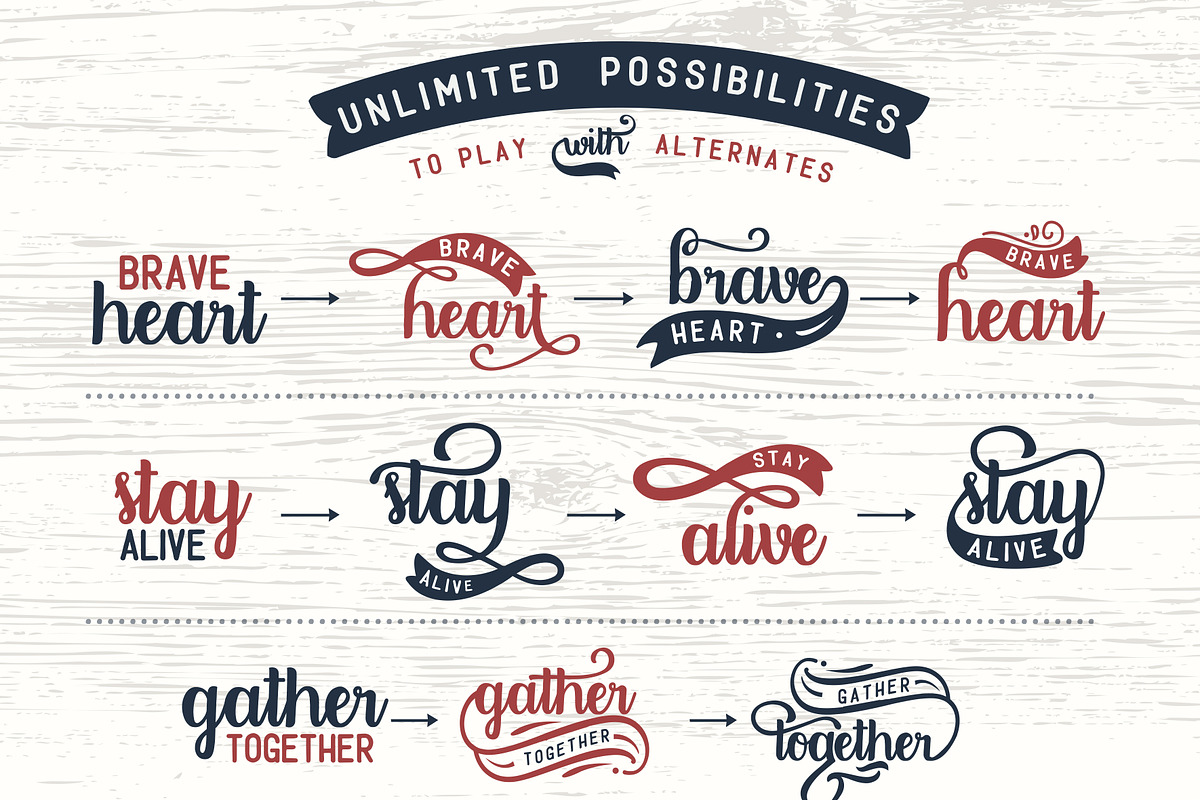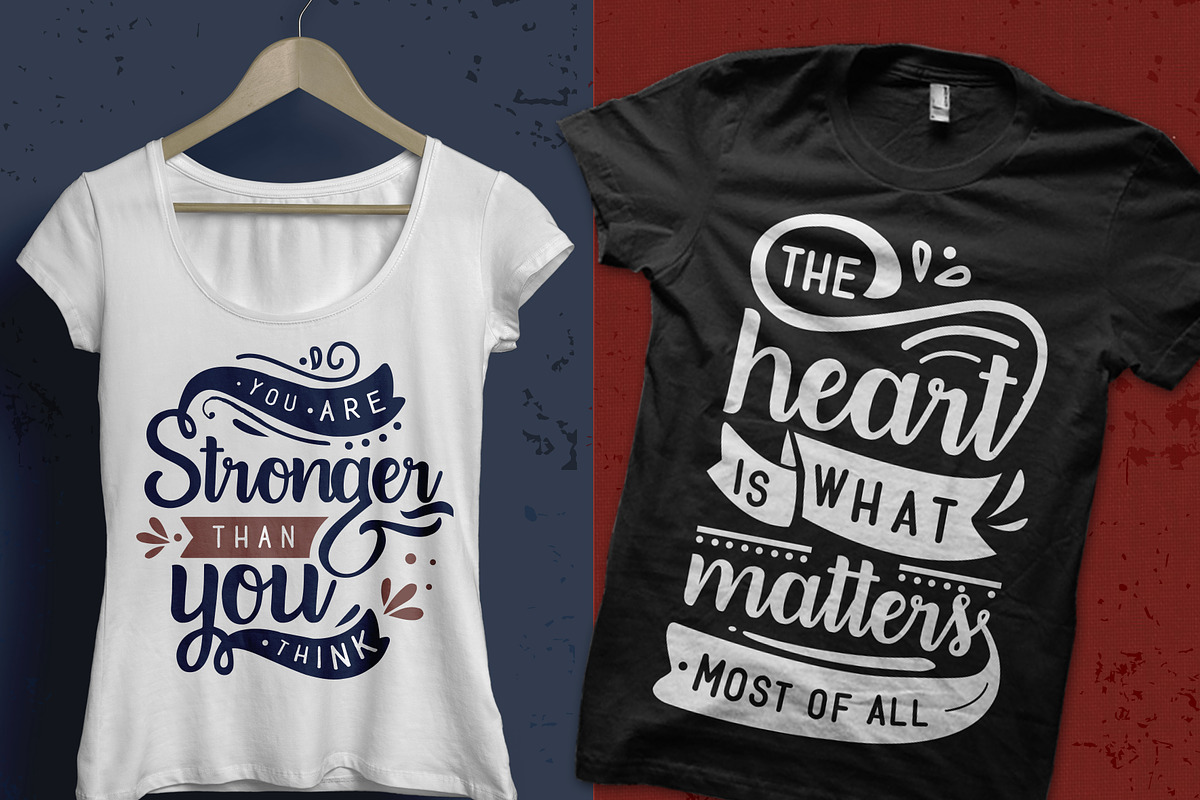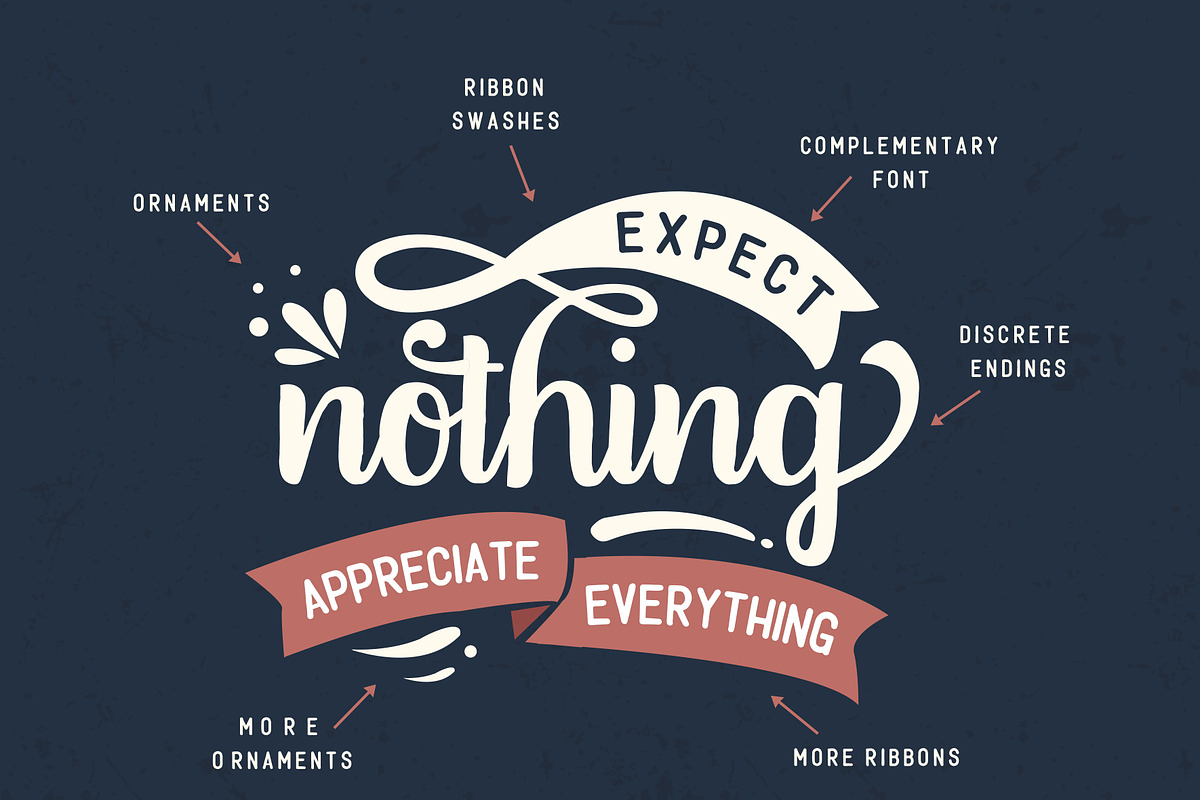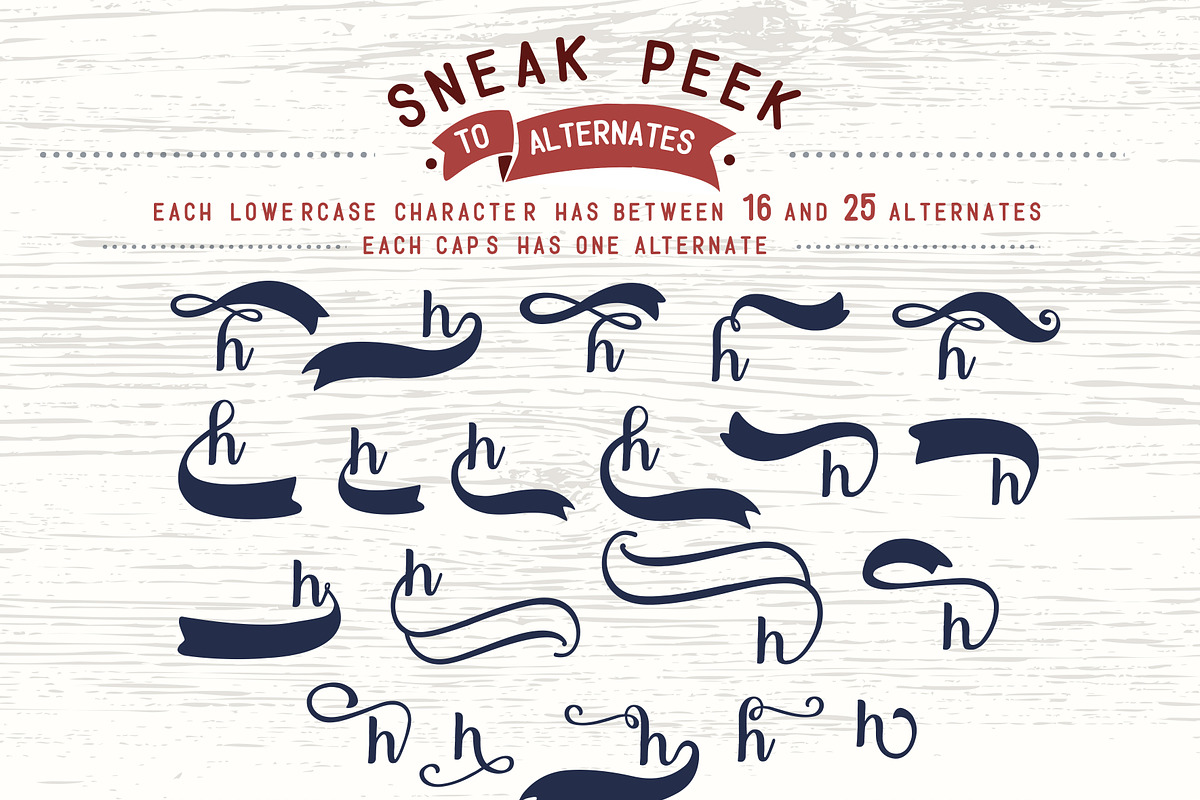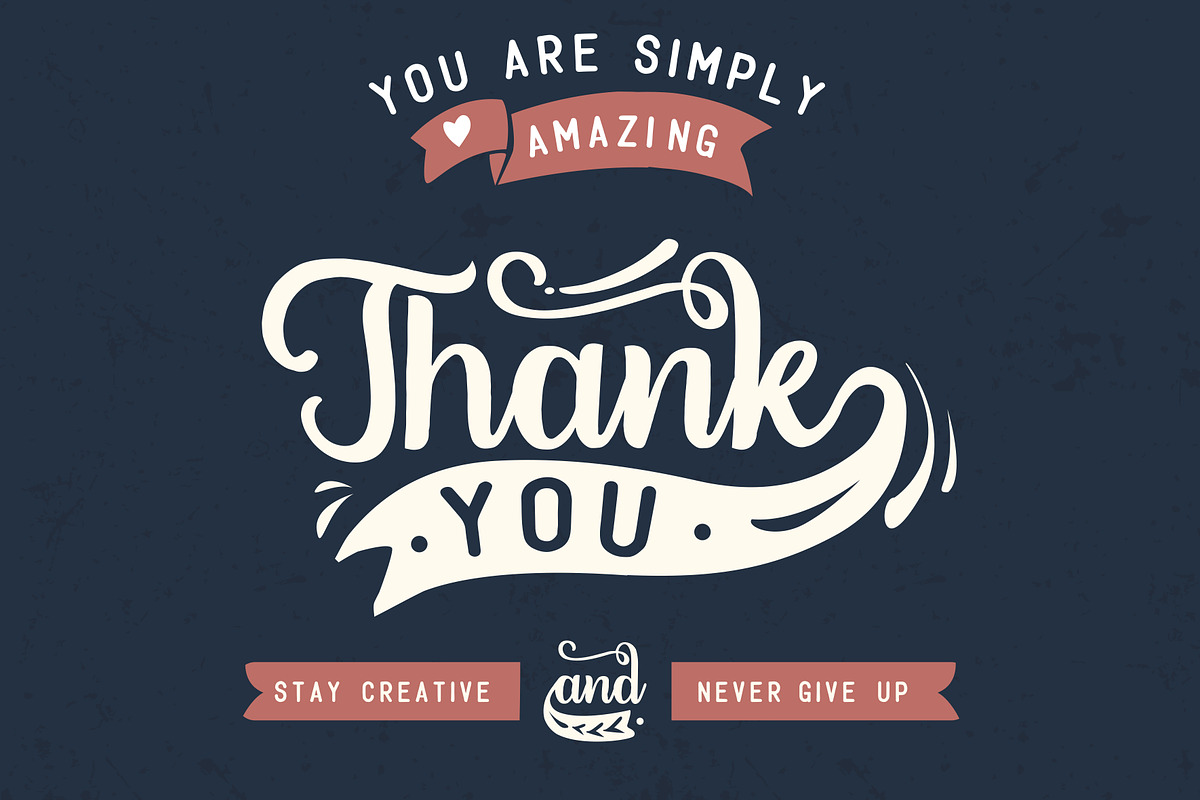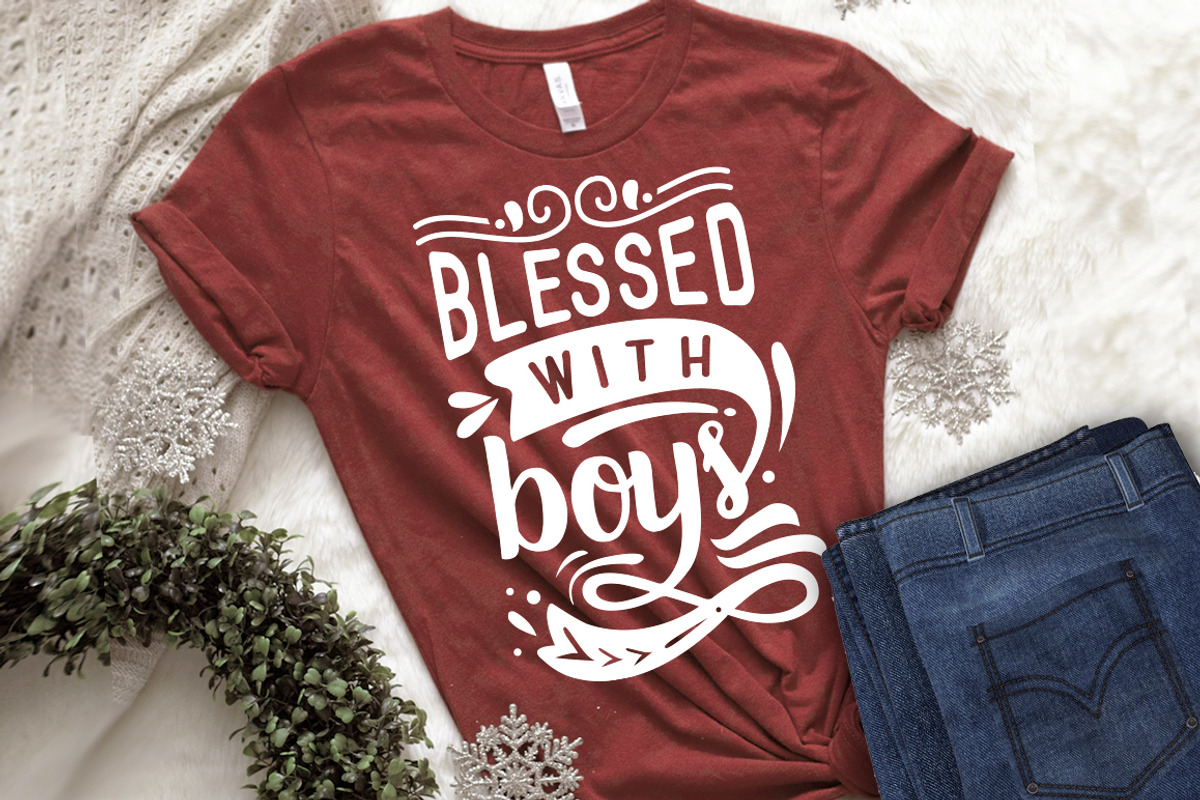
Rebetha Font DUO and extras
Rebetha is a font family containing 2 complementary fonts and an extra font containing 20 ribbons and 20 ornaments.
It includes lots of alternative glyphs that you can play with (more than 550!) and lots of cliparts in font format as well as EPS, PNG and SVG.
Each lowercase has between 16 and 25 alternates, and each caps has one alternate! Please check all lowercase and uppercase to access all cliparts in font format.
The best tool if you want to create t-shirt designs, mug designs, logos or just play around.